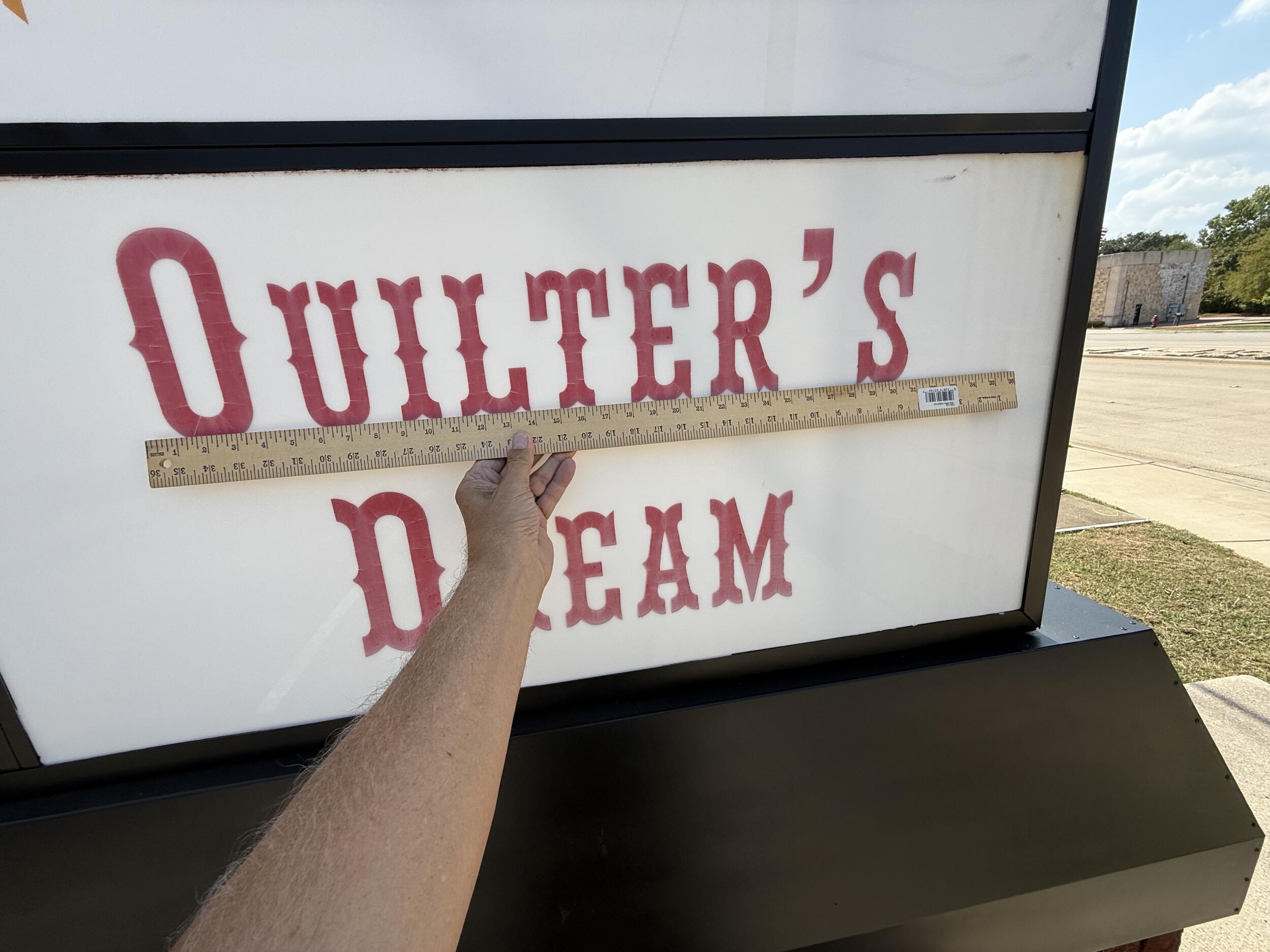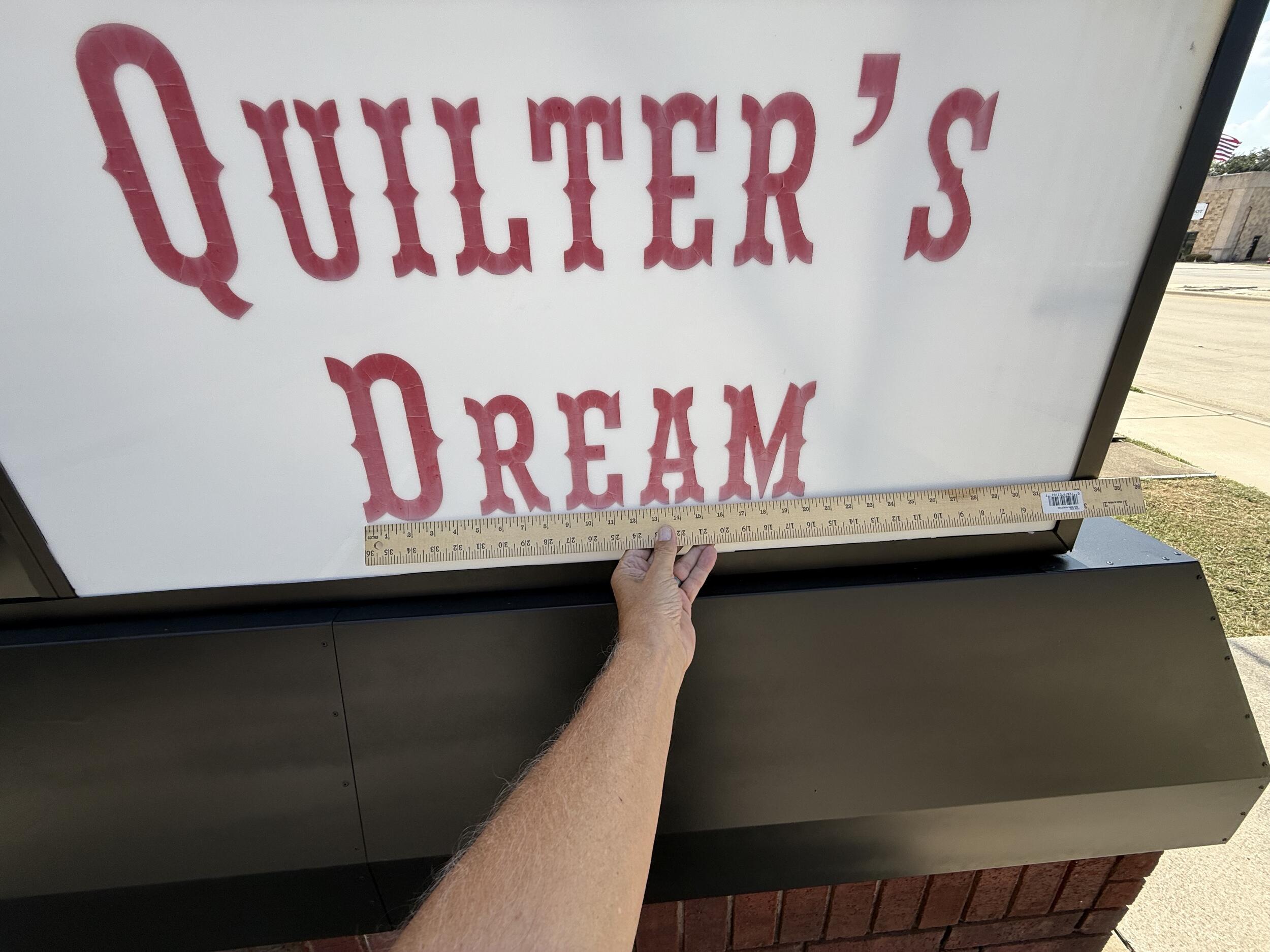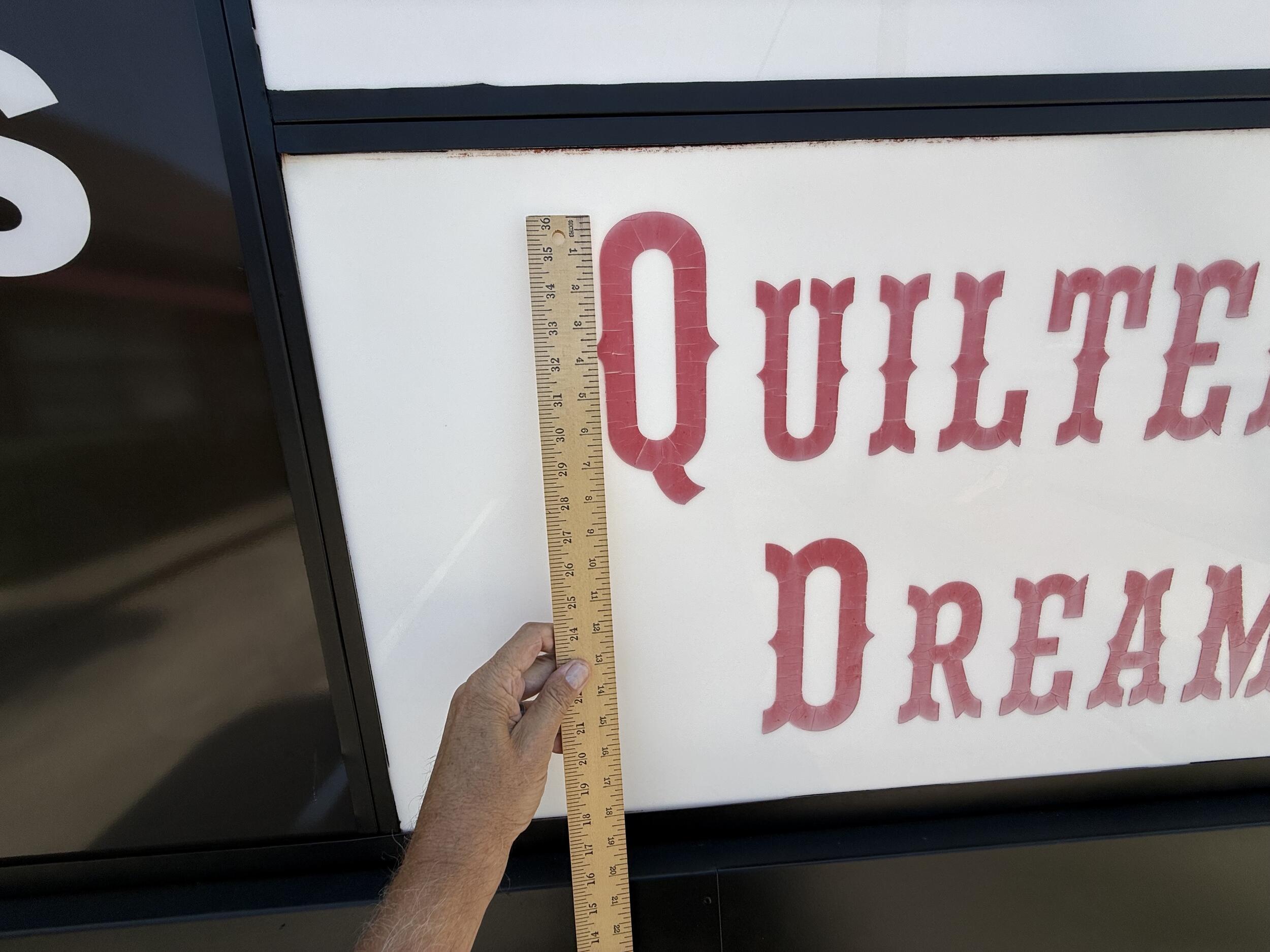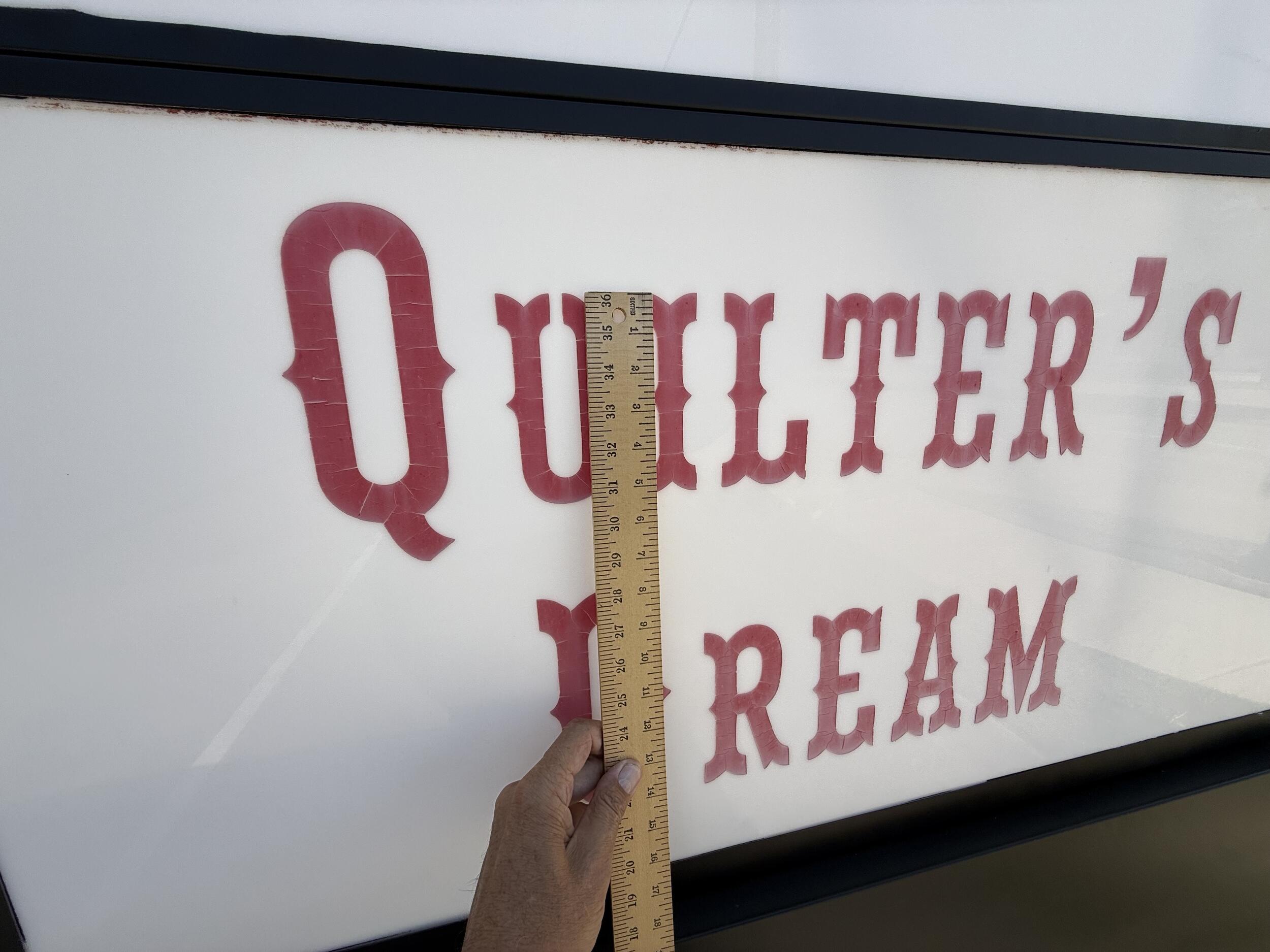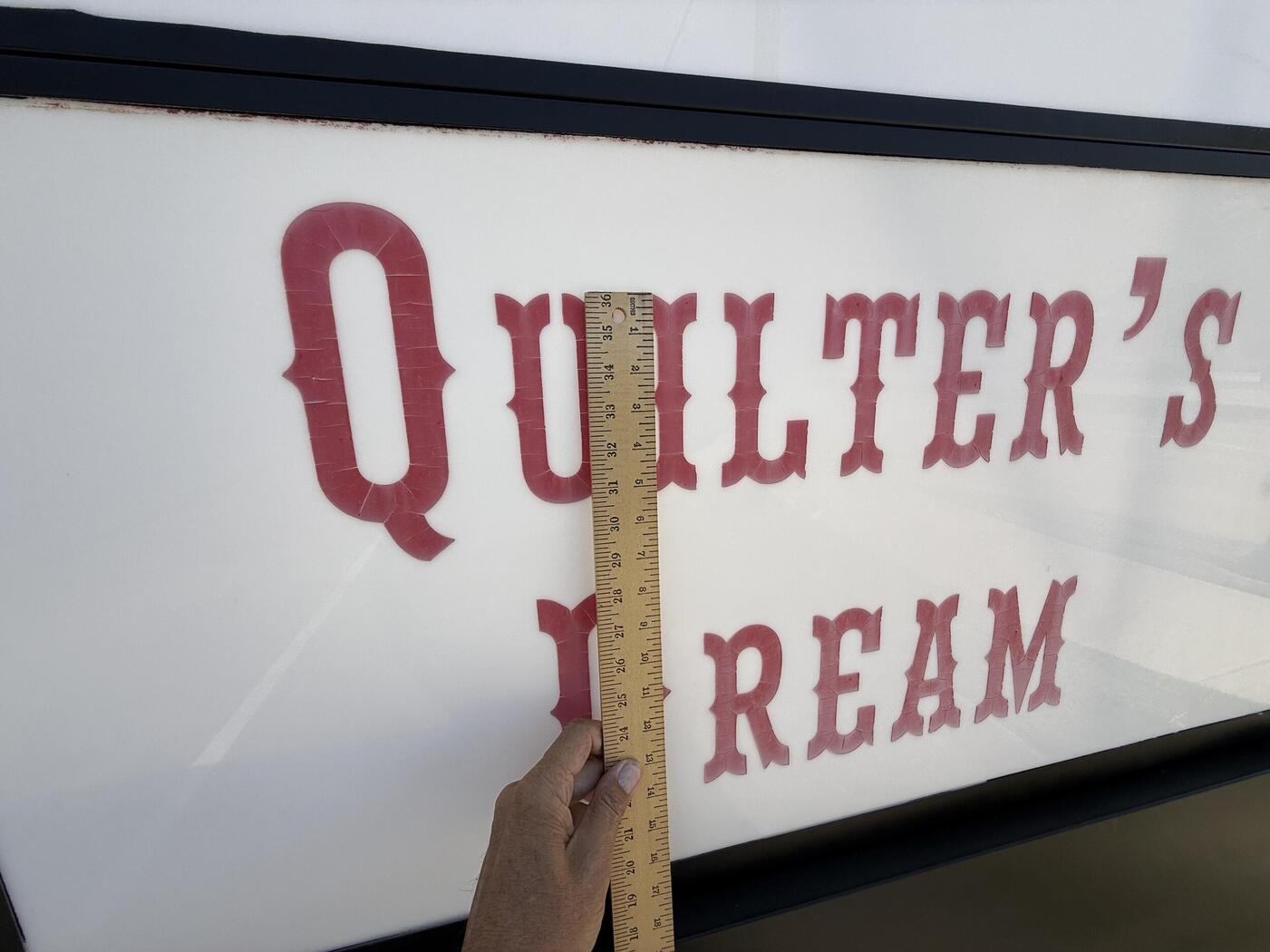
Need help with this font for a local business - Quilter's Dream
The attached photos were supplied by the client to help match so we can reproduce new cut contour vinyl graphics for their storefront. Fonts I have found that were close are Saloon Girl and Tex Mex, but this font seemed to be somewhat more modernized? Any help would be greatly appreciated!